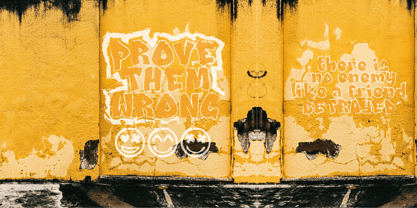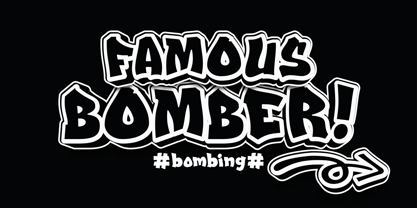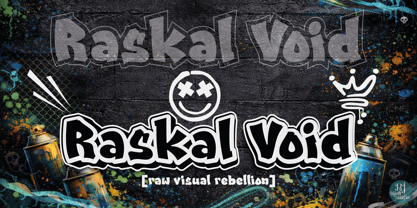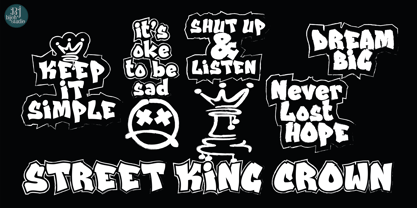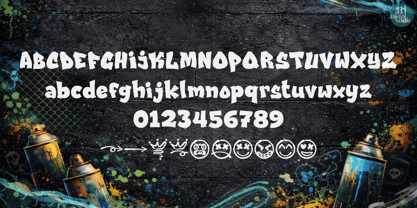
Raskal Void
by Bejeletter
Raskal Void is a graffiti typeface built with a wild, raw, and unapologetic street attitude. Its letterforms are constructed from uneven, aggressive strokes that echo spontaneous handstyle graffiti—bold, distorted, and highly expressive. The defining character of Raskal Void lies in its chaotic stroke construction and deliberately irregular negative spaces (voids). These voids are not merely empty areas, but active visual elements that create tension, rhythm, and an uncontrolled energy throughout the typeface. Legibility is not the priority—expression and attitude come first. Raskal Void embodies the spirit of modern vandalism, urban subcultures, and raw visual rebellion. It is designed to dominate the space it occupies and demand immediate attention. Raskal Void is best used for: Music posters (hip-hop, punk, hardcore, underground scenes) Streetwear and urban branding Album covers and music artwork Urban events and experimental visuals Bold headlines with strong personality Category: Graffiti / Display Tone: Rebel, raw, chaotic, urban Mood: Loud, dirty, expressive, anti-mainstream